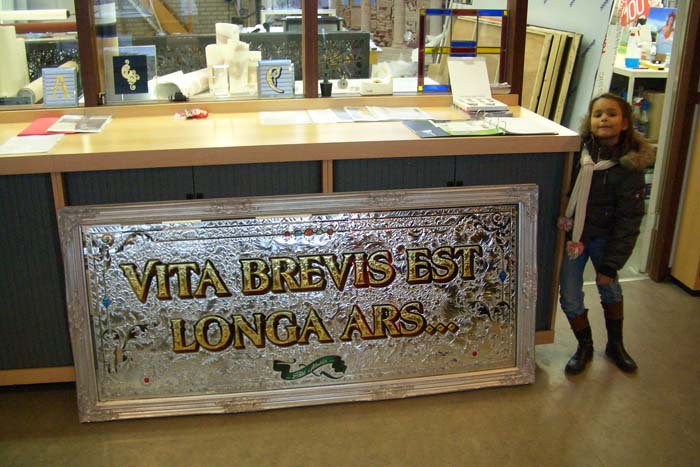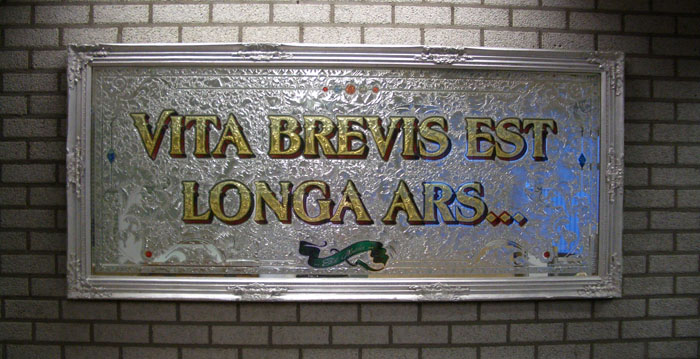
VITA BREVIS EST LONGA ARS...
Life is brief, but art is everlasting.
My wish is to make something that is worthwhile keeping after I am gone.
Nice for the next generation to keep.
I think the Latin phrase Vita Brevis Est Longa Ars sums it all up for me.
Who speaks English anyway? :wink:
This test piece was done as the next step to fullfill my promise made to Larry White in making a big big glass piece like the Rawson & Evans one with a blended shade.
Doing this large size I had to deal with some new problems.
Some techniques used:
Blended shading.
Blended gold lettering (23,45 & 18 krt).
Colored abolone inlay.
And a few other things.
Still in the learning phase ;-)
Nice Erik...very nice!
I like a man that's got his mind right on what needs to be done.
Need to see a close-up of one of those letters.
Some close ups.
LATINE LOQUI COACTUS SUM,
I thought the phrase was,
Ars Longa, Vita Brevis, Art Endures, Life is Short.
This translates to,
Vita Brevis, Life is Short
Est, There Is
Longa Ars, Edures Art
roughly speeking.
or maybe it's LICENTIA POETICA, I could be wrong...........
What would you know about Greek, I mean Latin anyway?
BRITANNICA LOQUI COACTUS SUM
John, as I am told Latin can and is translated in many different styles or forms.
Before I made the design I read, asked and debated with a few people who studied Latin at school.
They came up with the used text as being the right text for what I wanted to say in combination of the used phrase in literature.
So yes a little bit of licentia poetica is used.
Ars Longa, Vita Brevis, Art Endures= Art is forever, Life is short, .... Is double in one sentence.
Who am I to, Homo sapiens non urinat at vantum :wink:
Larry Lochness, I am a mixture of all royal ancient cultures: Germanica, Romanica et Spartanica.
I know Dutch, French, German, Spanisch, a little English and very little Latin
ERIC, ABSIT INVIDIA, after all AD IDEM...........CURA UT VALEAS...
Credo Elvem Etiam Vivere
Plures gratiae john illi pius lacuna
TU QUOQUE,......SI FINIS BONUS EST, TOTUM BONUM ERIT!.................
Erikius-
Personally speaking, mind you, I think you might be able to achieve more contrast in your letters with a different finish. The glue chip and gilded letter centers so close to the glue chip and mirrored backgound, almost gives the feel that I'm seeing the backgound in the letter center through a tinted glaze. I have found that painted letters stand out nicely against a silvered glue chipped background, often with a blended color. Or gold brightlined letters with a paint center, provided they are outlined. Your lettering might have been more pronounced if they were in a painted panel. A few things to contemplate.
Merda Taurorum Animus Conturbit........ Sorry Larry, had to get my 2cents in.
Thank you John for those kind words, Larry I will work on your new tips.
Already had the feeling myself that I had done enough volume chipping and silvering in my testpieces.
David Slade wrote:Realizing we are in the 2nd renaissance???
The first Renaissance went back to the ancient arts.
They learnt from the Greeks and Romans and tried not just to copy it, but use it and improve it with their newly aquired knowledge and insights.
I am realising that in some way this last century I (we) have lived in some kind of dark age and I (we) try to copy and improve the art of the 19th century and the ancients.
I am still in the learning fase....
Eriko da Amsterdam (what do I mean with this?)